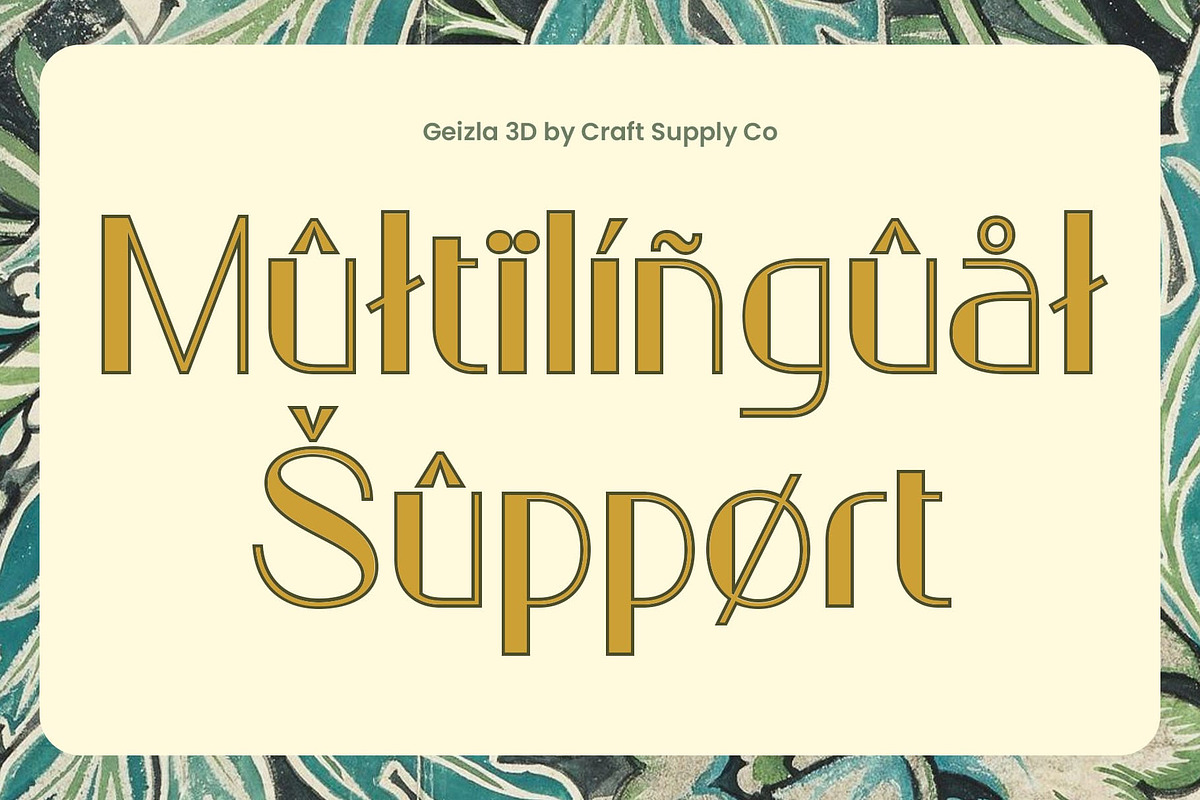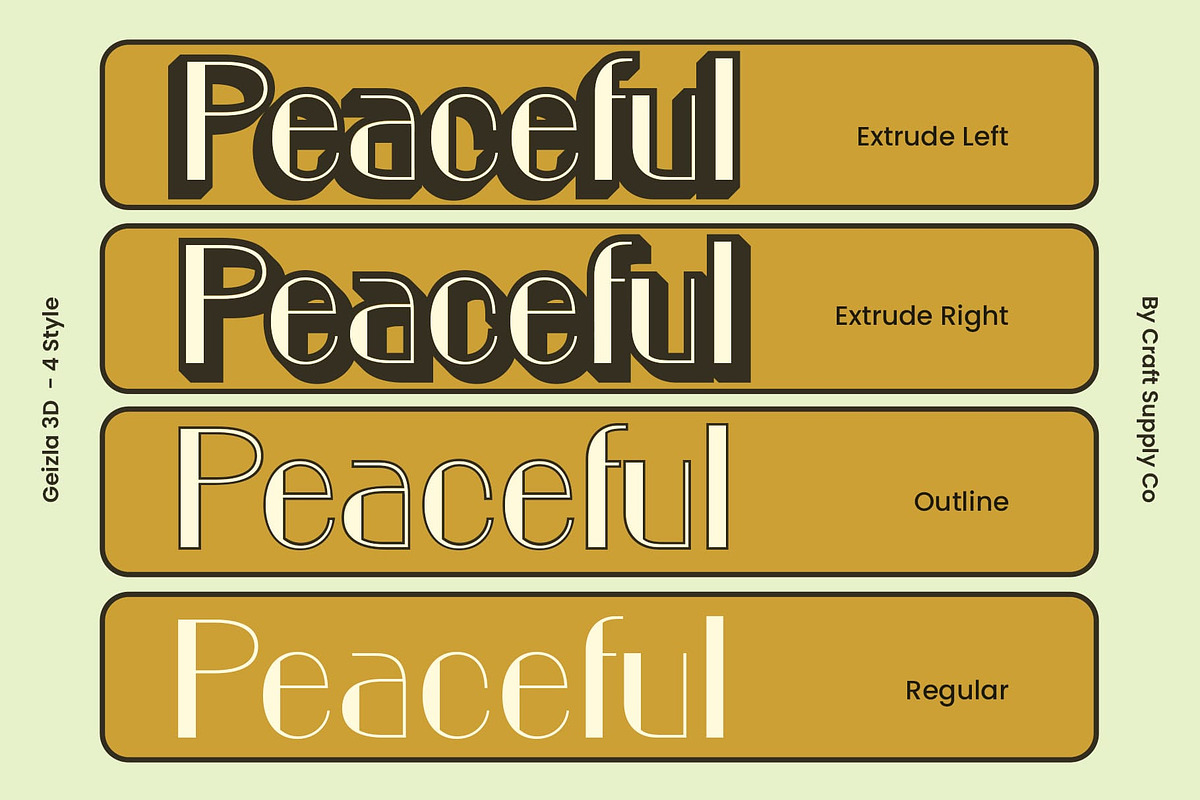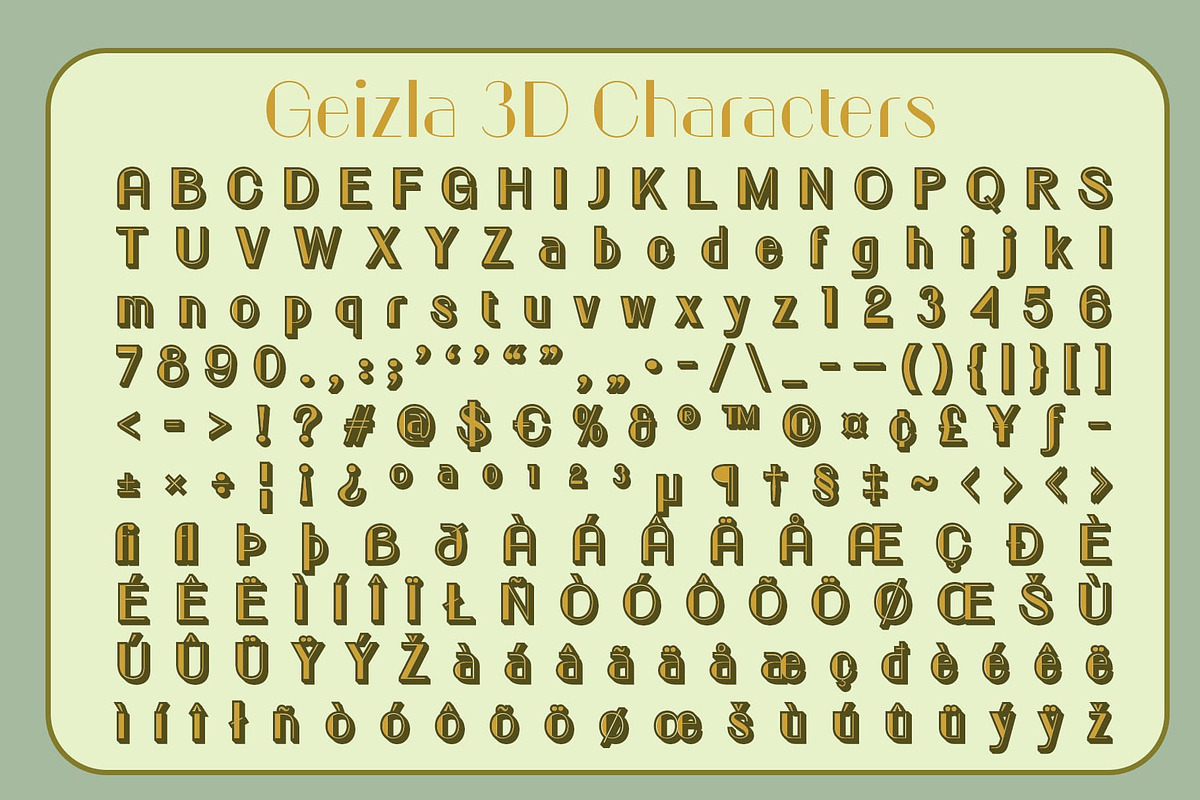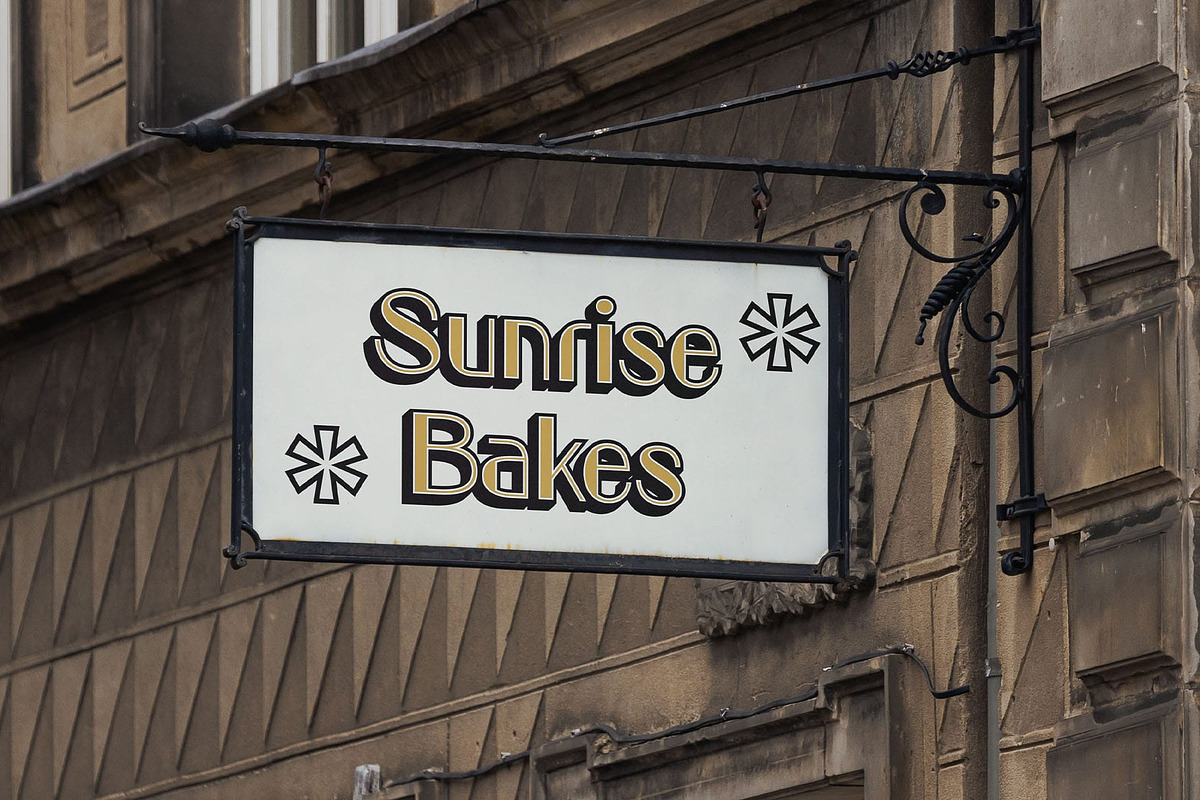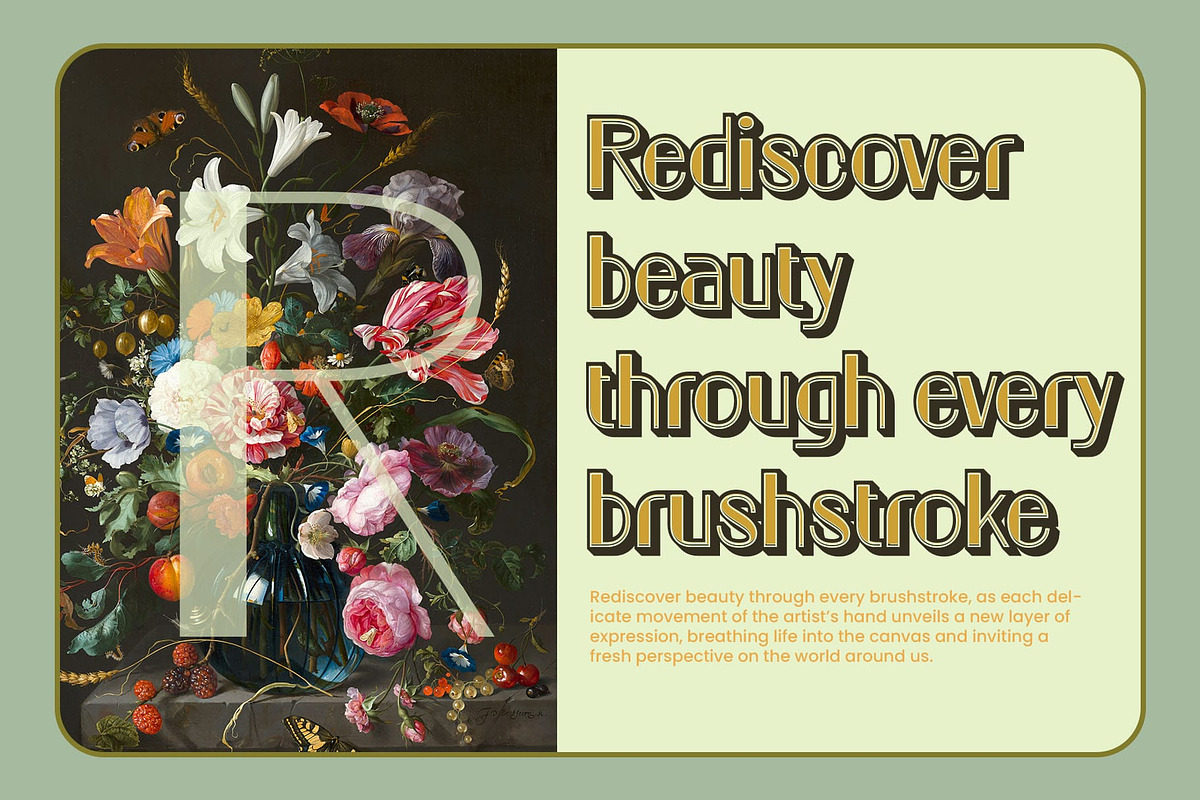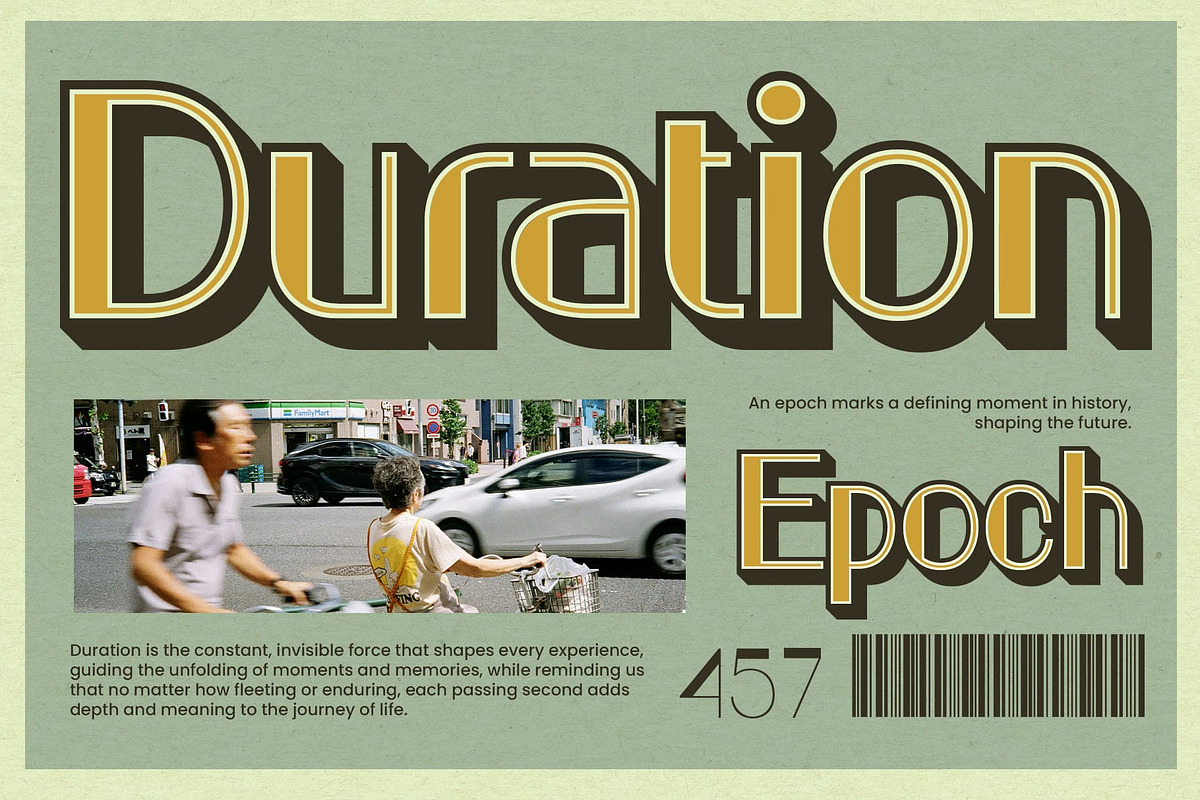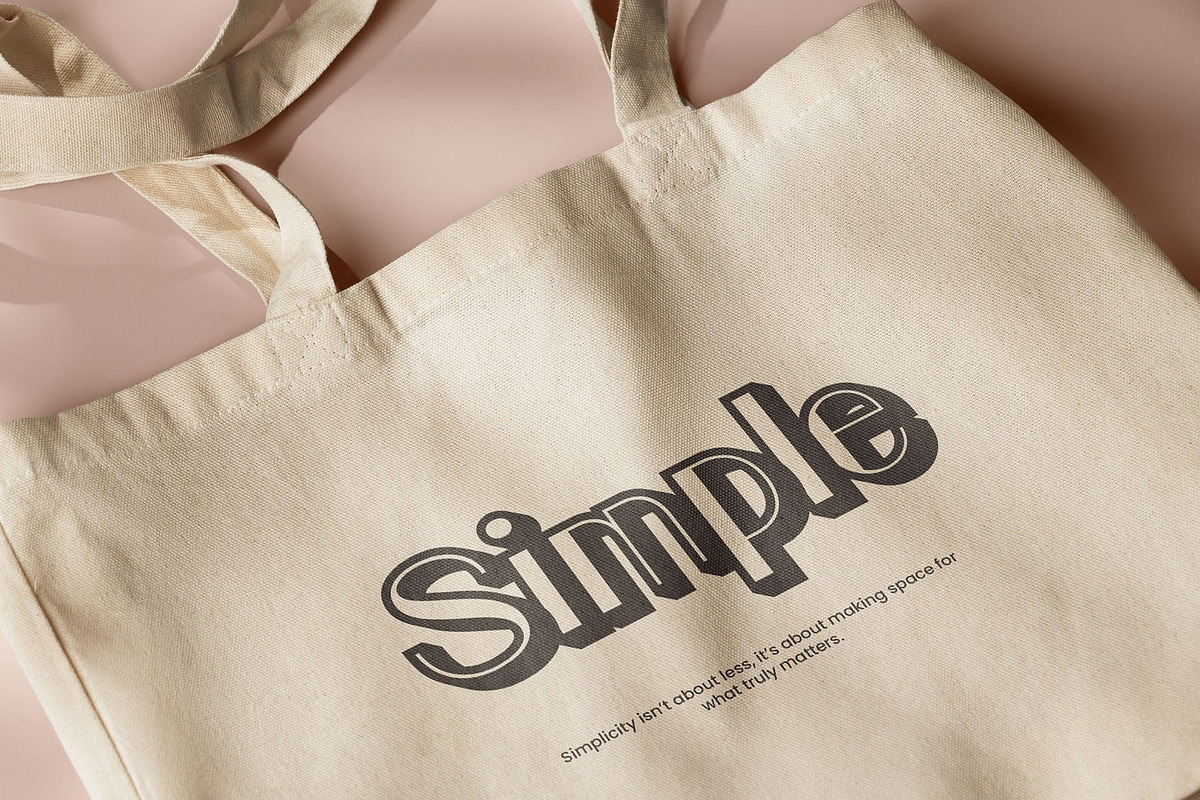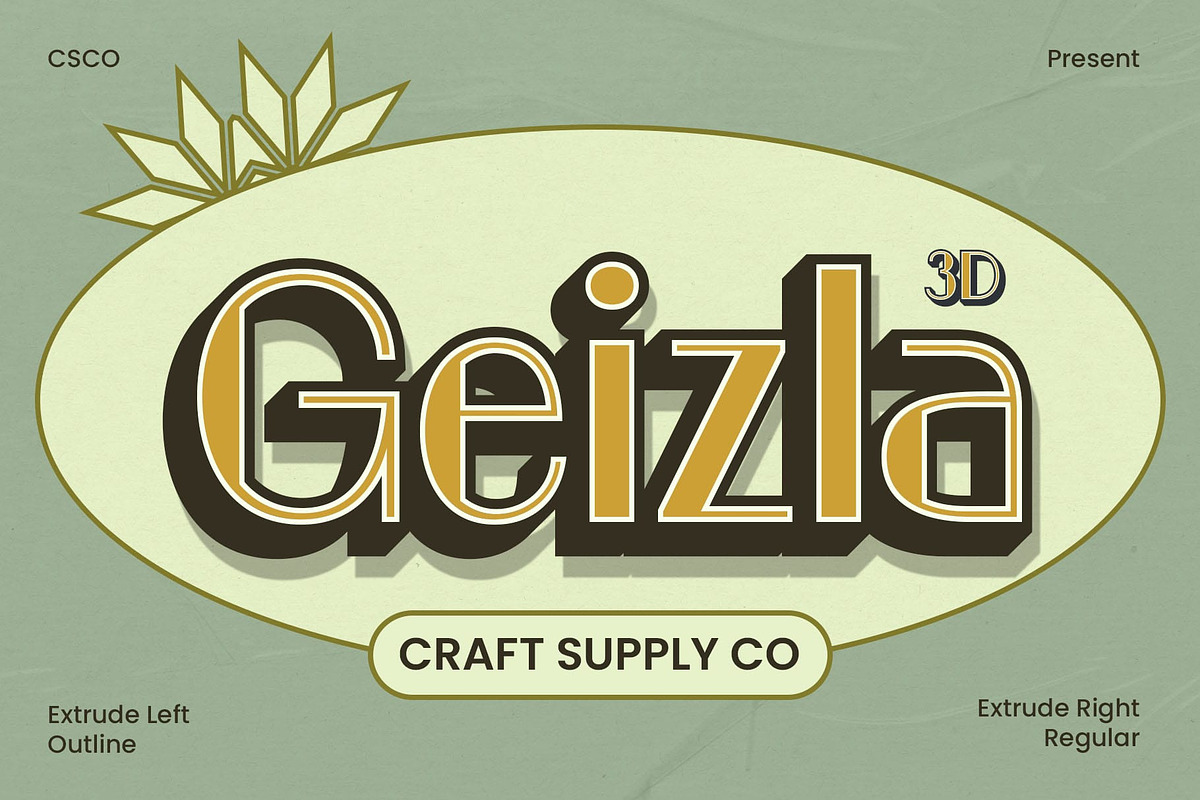
Geizla 3D
Geizla 3D Font: Minimalist Sophistication with a Dimensional Flair
Modern Sans-Serif Font with a Slim and Clean Design Geizla 3D is a modern sans-serif font that exudes elegance and refinement through its slim, clean letterforms. Its sleek and minimalist design strikes the perfect balance between contemporary aesthetics and timeless sophistication, making it ideal for projects that demand a polished and upscale appearance.
Enhanced with a Dynamic 3D Effect The addition of a striking 3D effect brings Geizla 3D to life, adding depth and visual intrigue to your designs. This dimensional flair ensures a captivating presence, elevating your text with a luxurious and dynamic touch. Whether used for headlines, branding, or promotional materials, the 3D effect enhances its visual appeal and sets it apart.
Perfect for Premium Branding and Elegant Designs Geizla 3D is tailored for premium branding and editorial projects that require an air of sophistication. Its clean and modern structure ensures a professional impression, making it suitable for classy promotional campaigns, product packaging, and high-end corporate identities. The font radiates luxury and attention to detail, aligning perfectly with high-caliber design requirements.
- Geizla Regular
- Geizla Outline
- Geizla Extrude Right
- Geizla Extrude Left